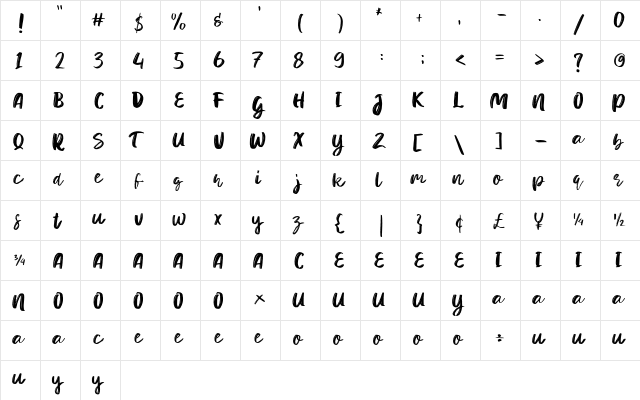
Toast and Honey Regular
Design Context for Toast and Honey Typeface
Toast and Honey is a composed and adaptable typeface that performs quietly and consistently across a wide range of design contexts.